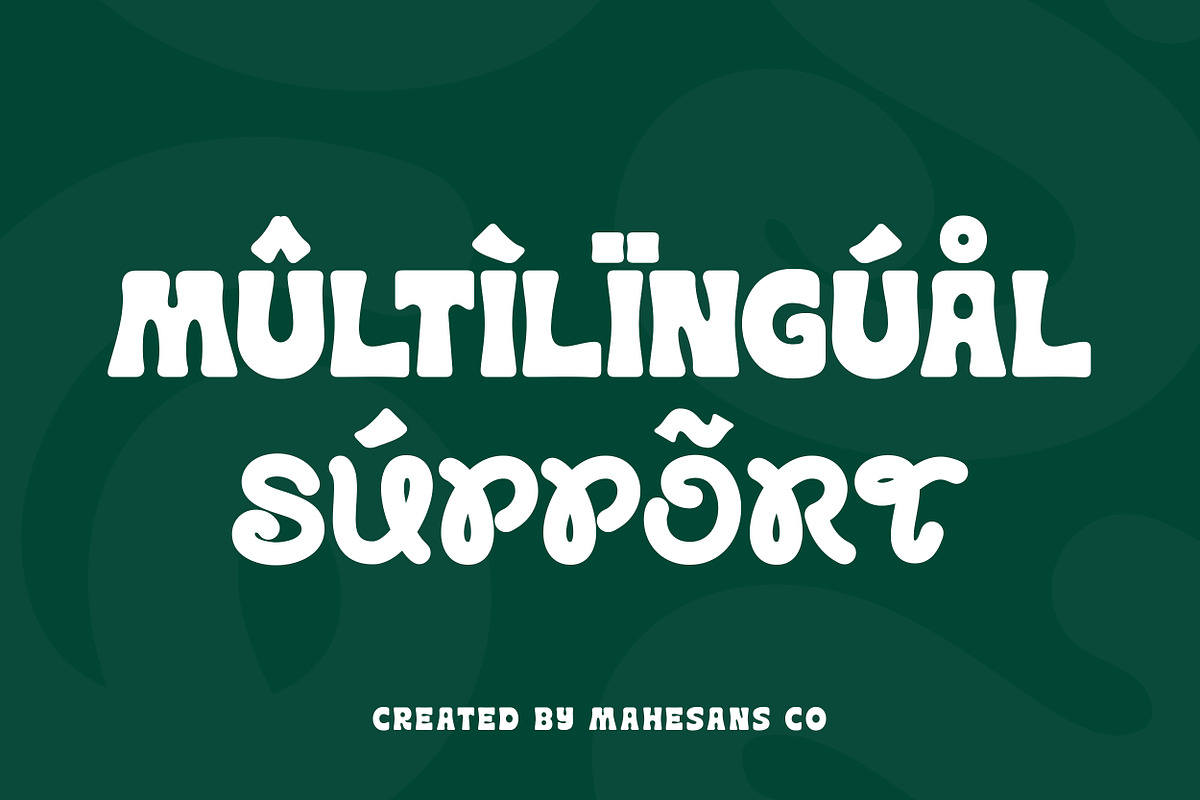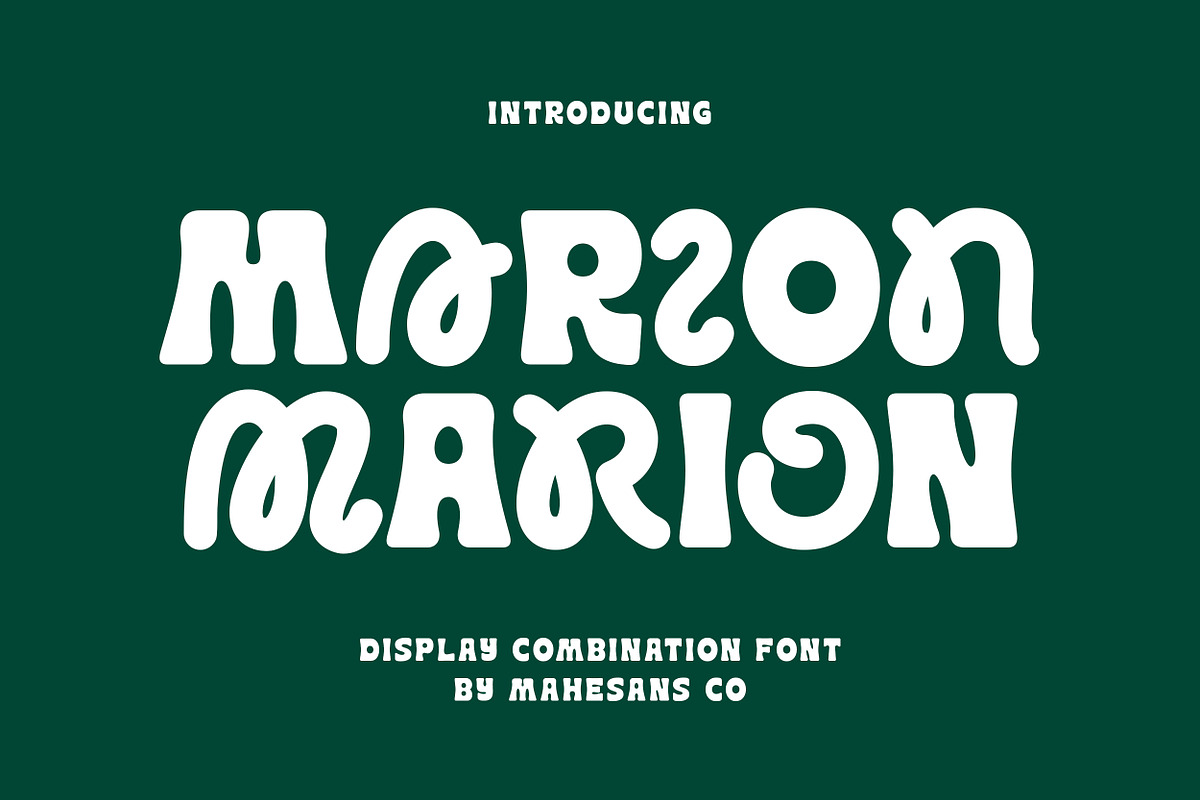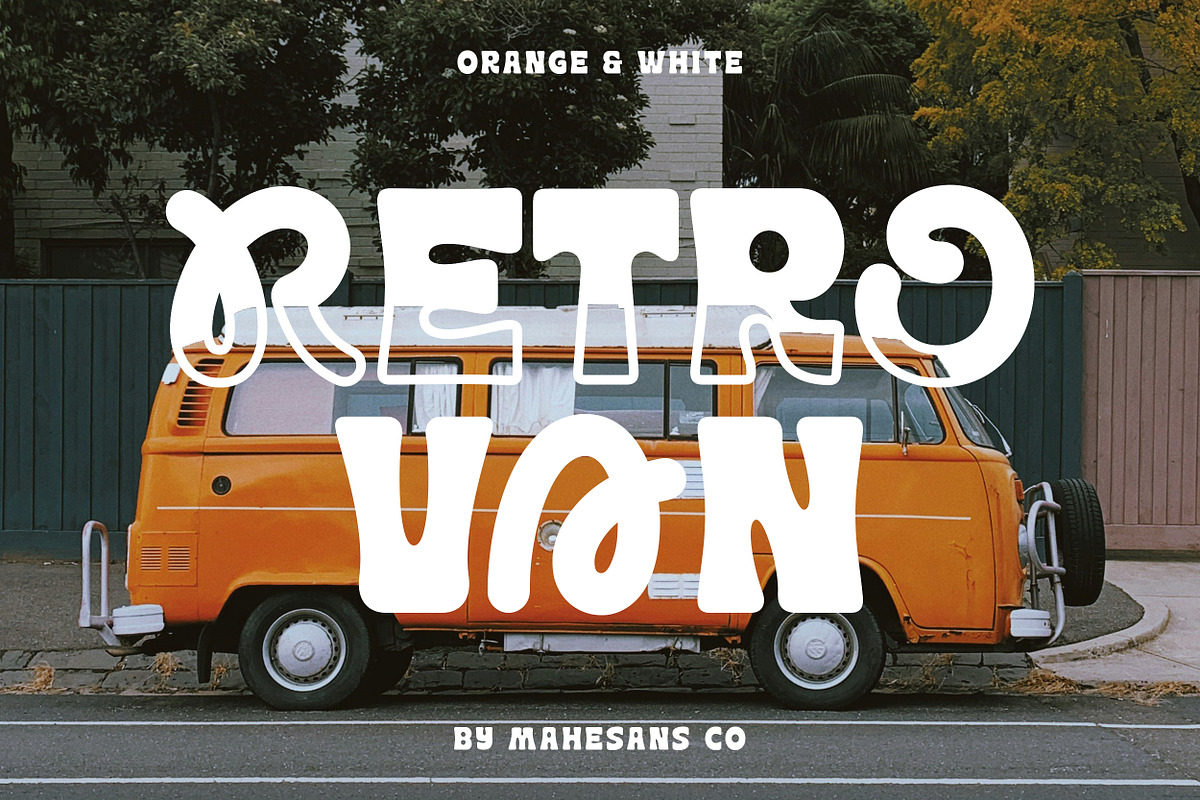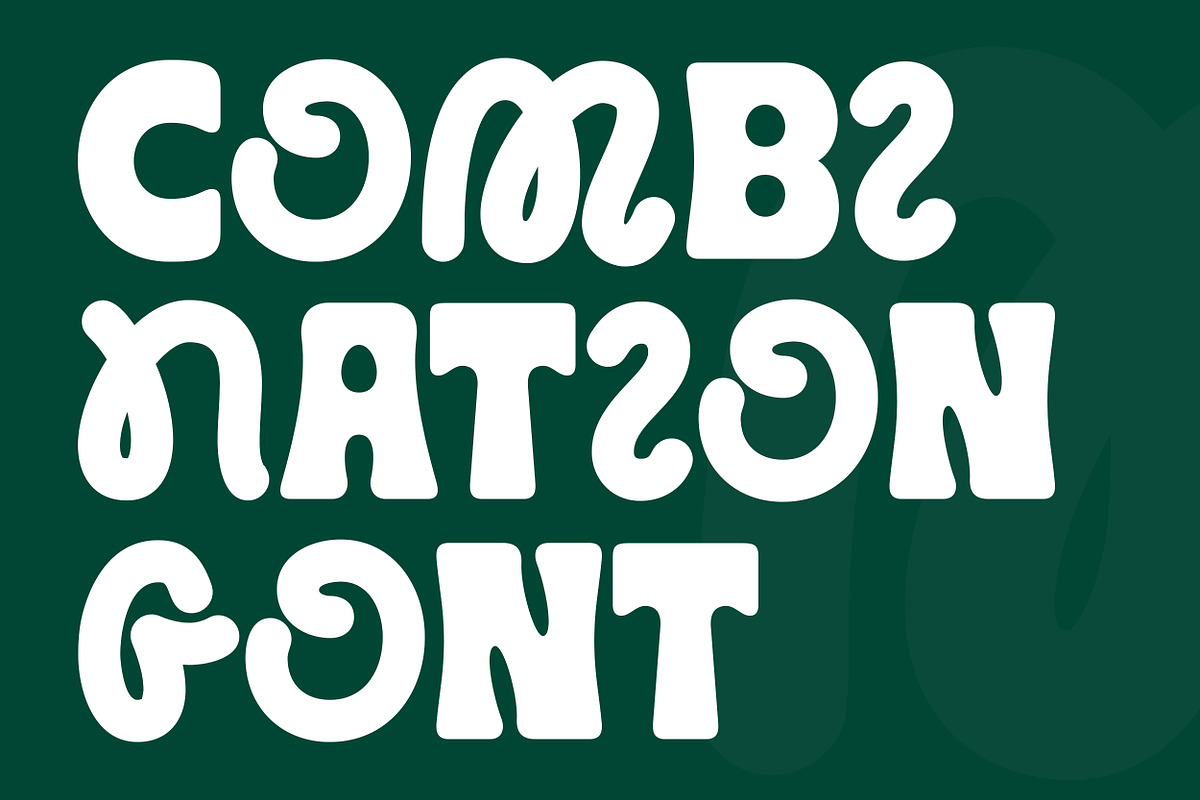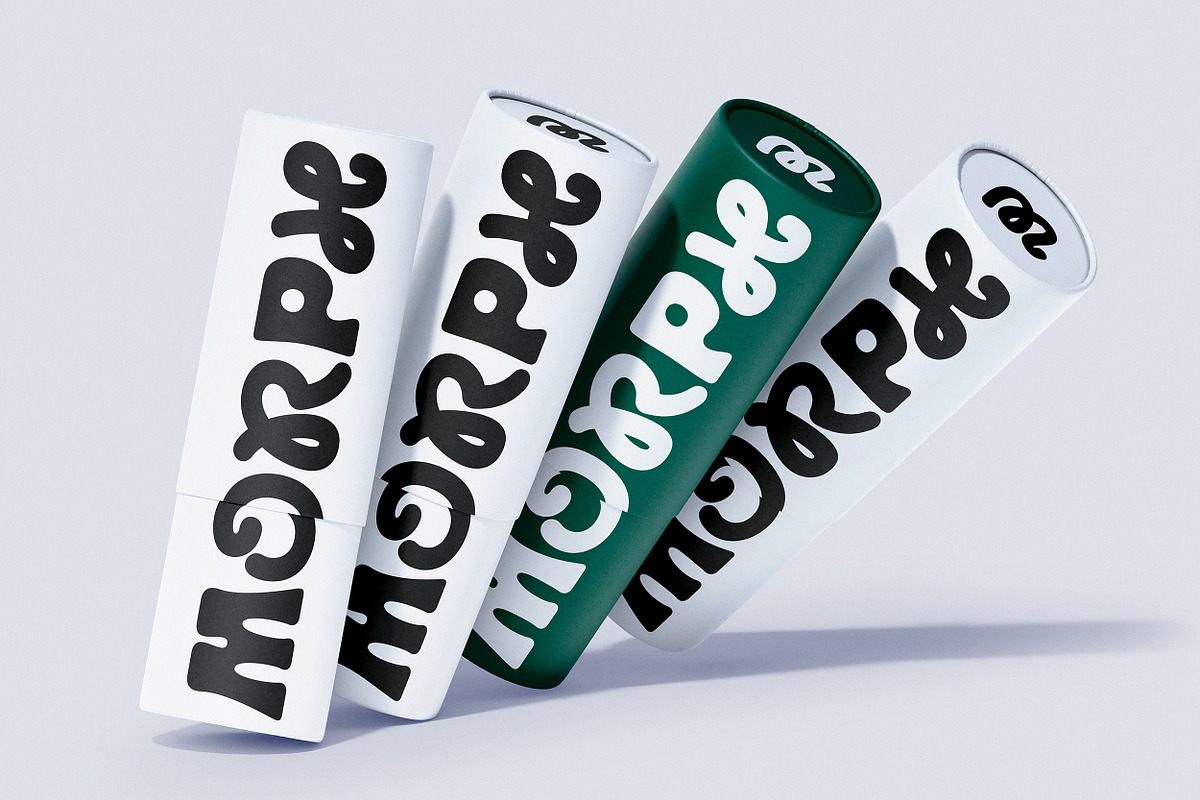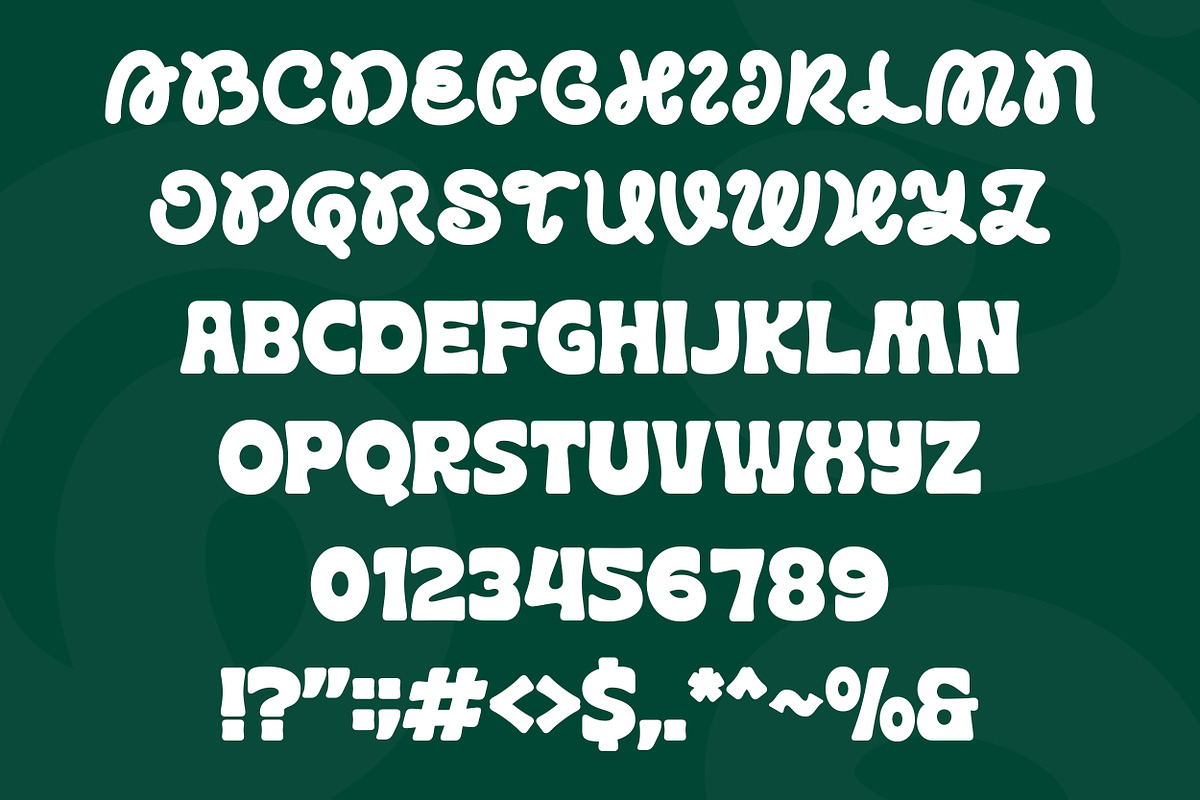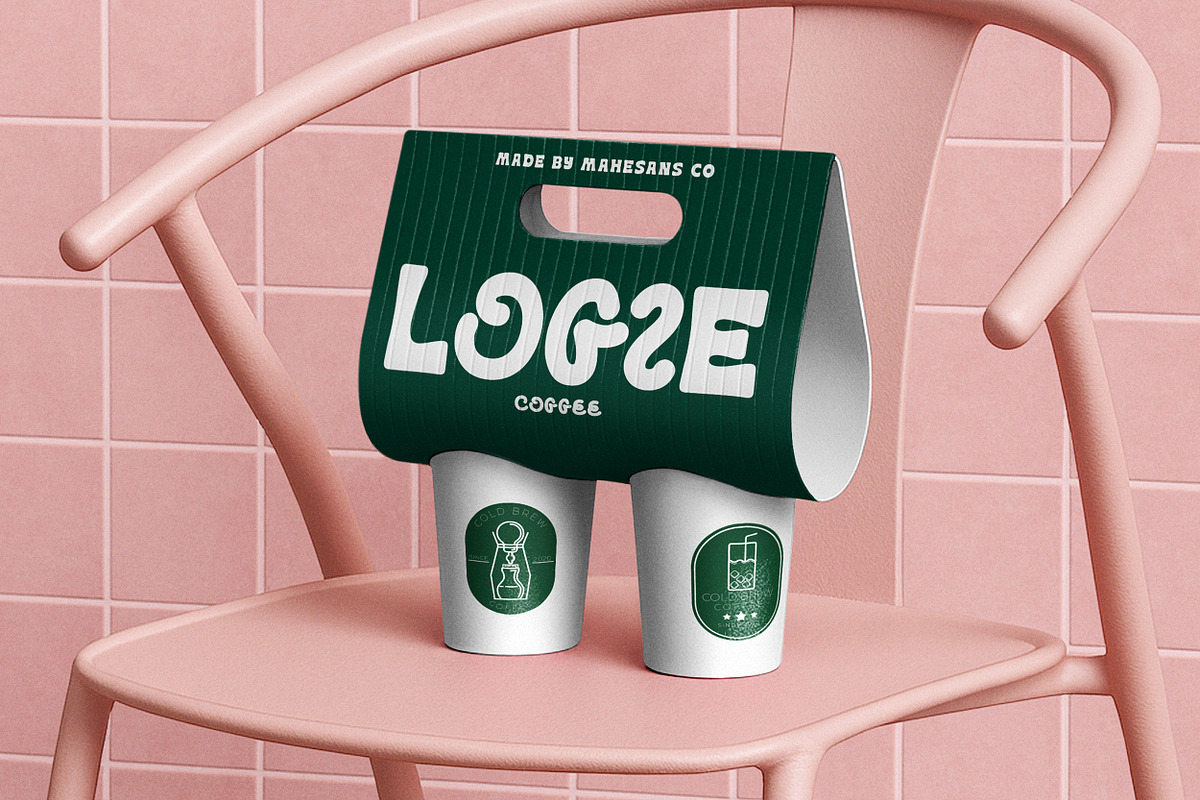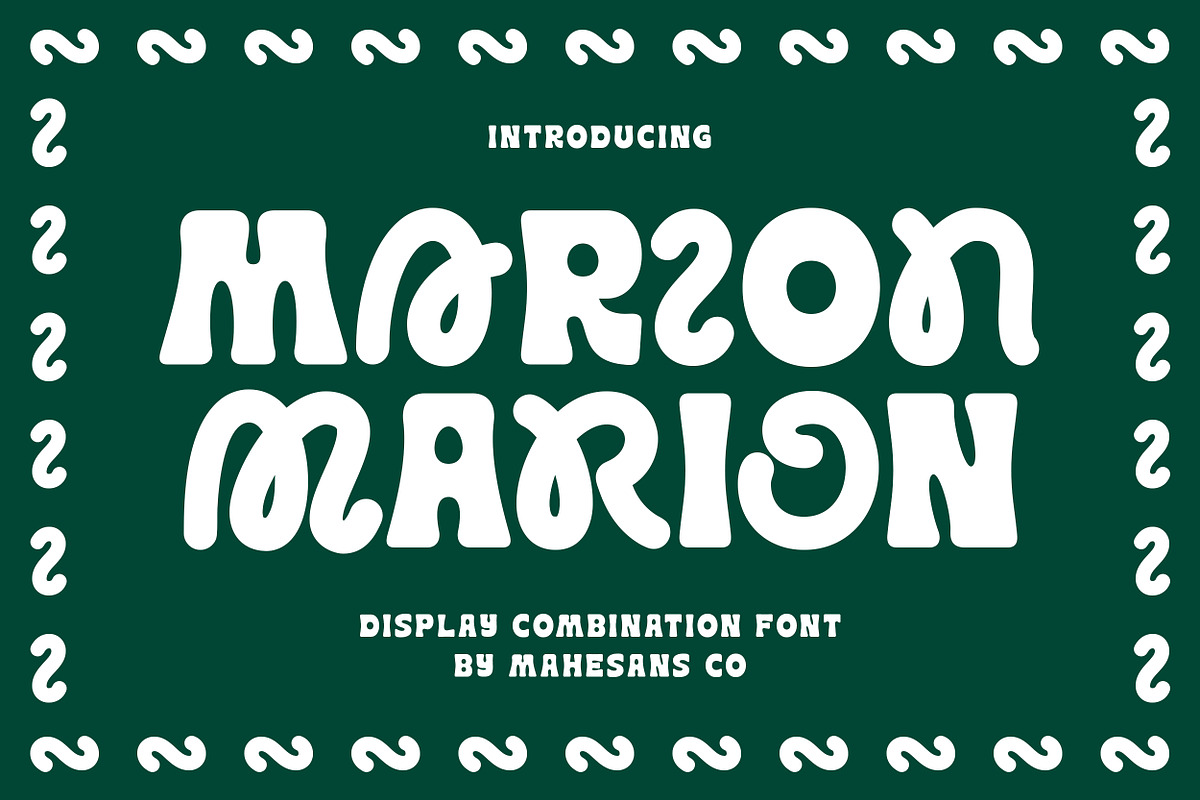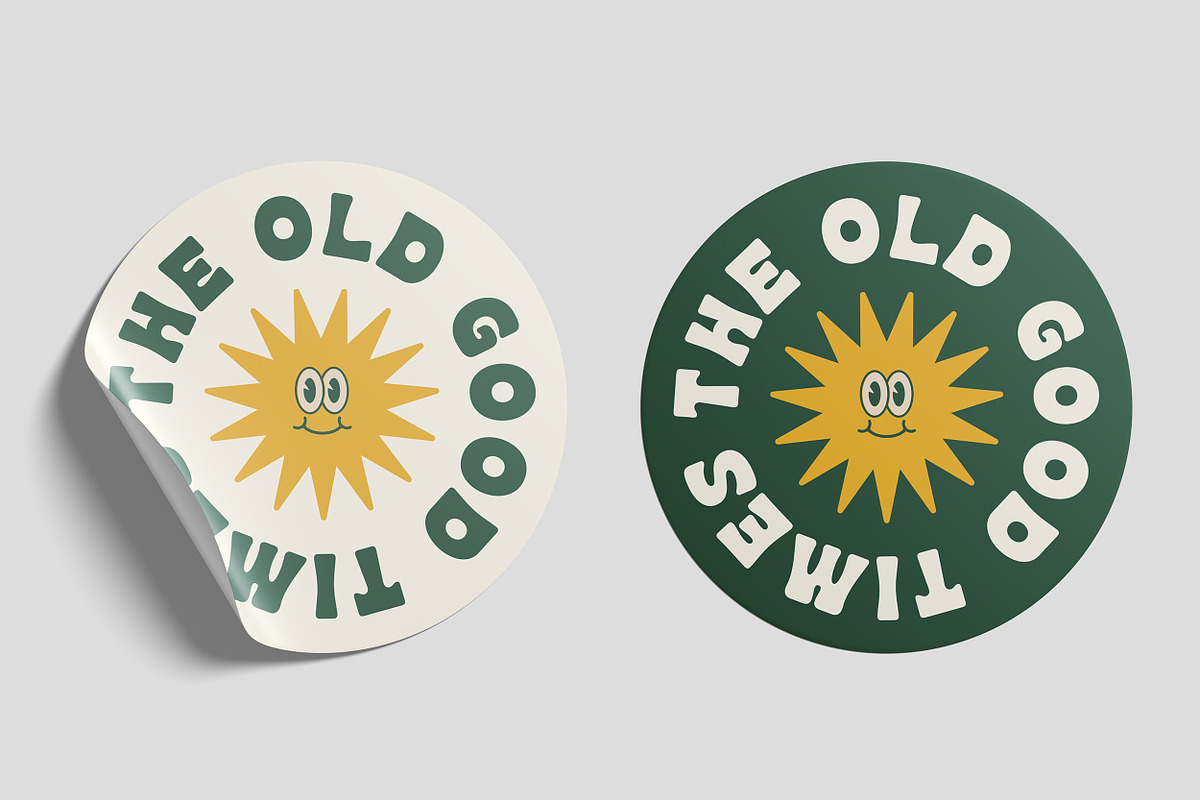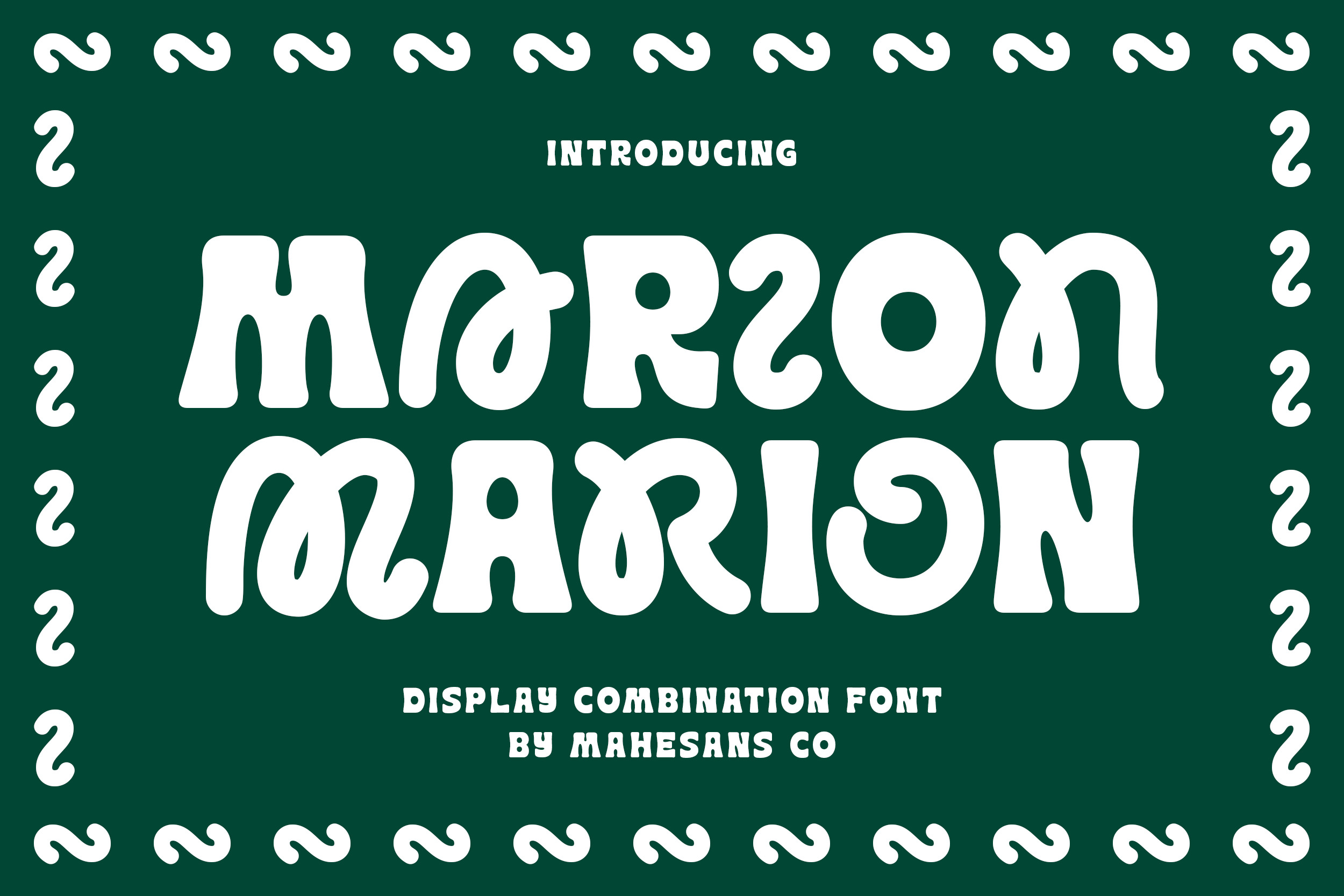
Marion - Display Combination Font
Marion is a bold and groovy display combination font that blends retro charm with modern energy. It features a playful contrast between soft, rounded shapes and chunky letterforms — perfect for designs that demand attention and personality.
Each character feels alive with movement, making Marion ideal for creative branding, eye-catching headlines, and nostalgic design projects.
- Multilanguage
- Retro Posters & Album Covers
- Logo & Branding Projects
- Packaging Design
- Merchandise & Apparel
- Event Titles & Typography Art